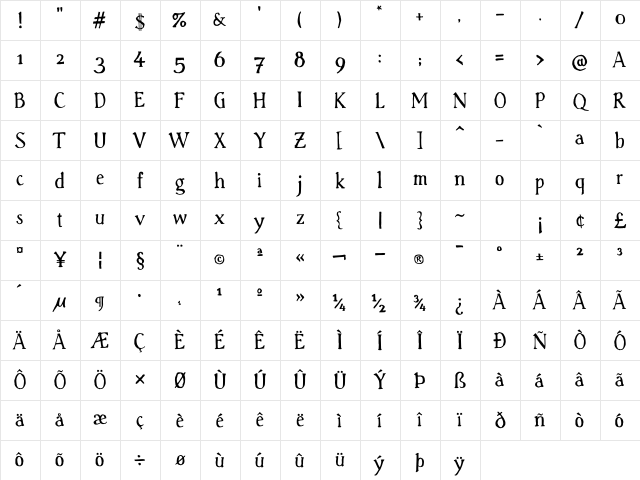
Handserif Medium Free Font
Handserif Medium
Style: Medium
Complete Handserif Medium glyph index. Displaying only characters natively supported by Handserif Medium font.
Design Context for Handserif
Handserif flows with the natural rhythm of handwritten lettering, making it ideal for designs that call for warmth and personal expression.
Font Pairing: Combine Handserif with a simple geometric sans for maximum contrast - the tension between flowing curves and clean structure is a classic typographic pairing.
Pro Tip: Use Handserif for short runs of text - names, titles, or taglines. Extended body copy in script faces tires the eye quickly.